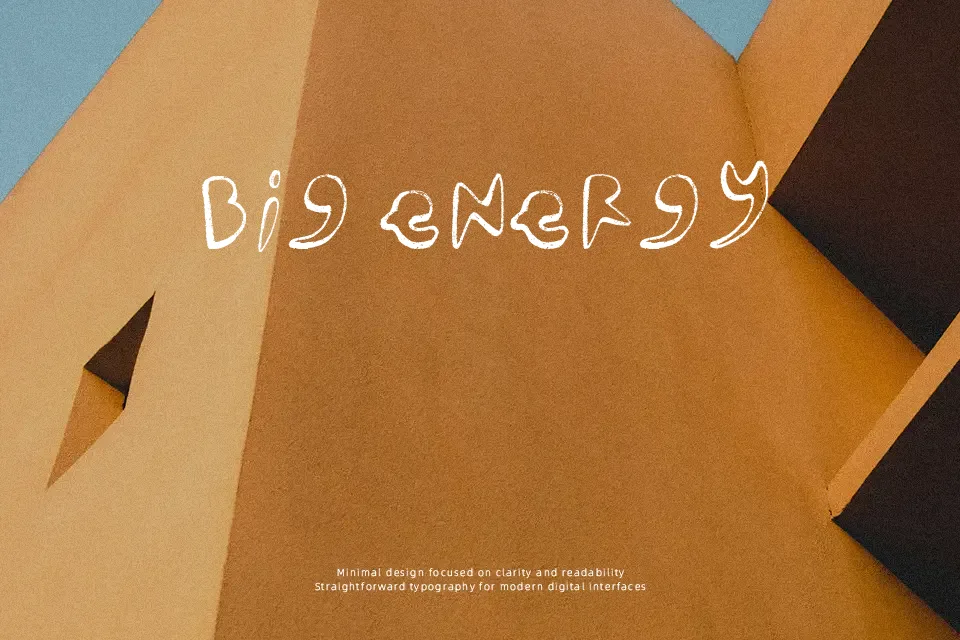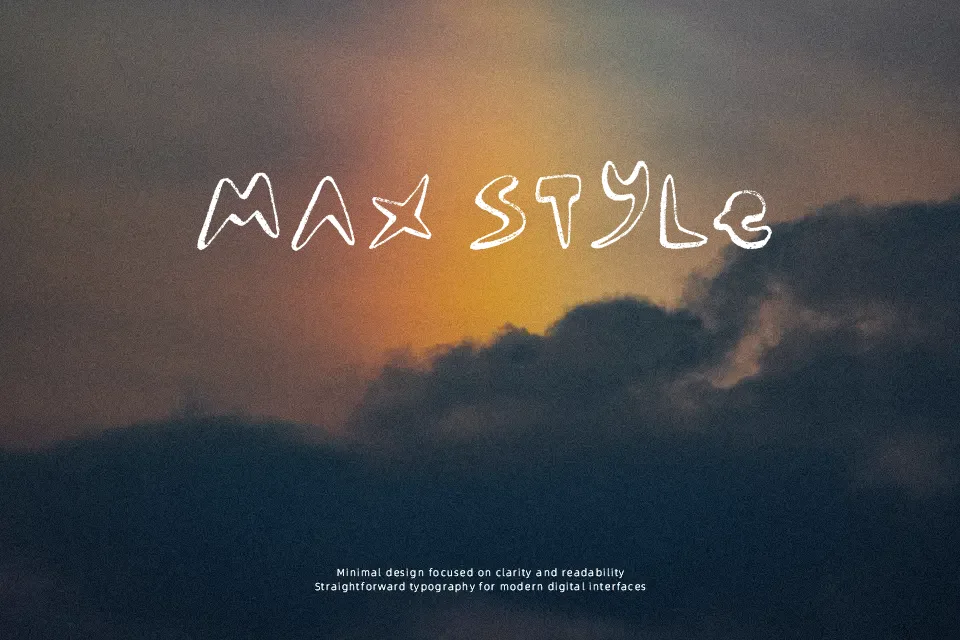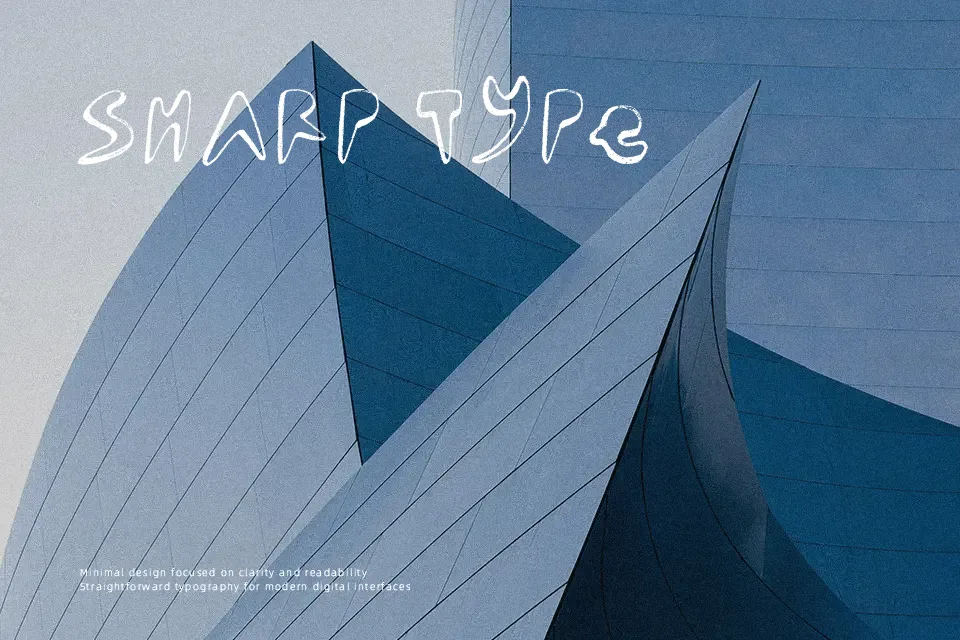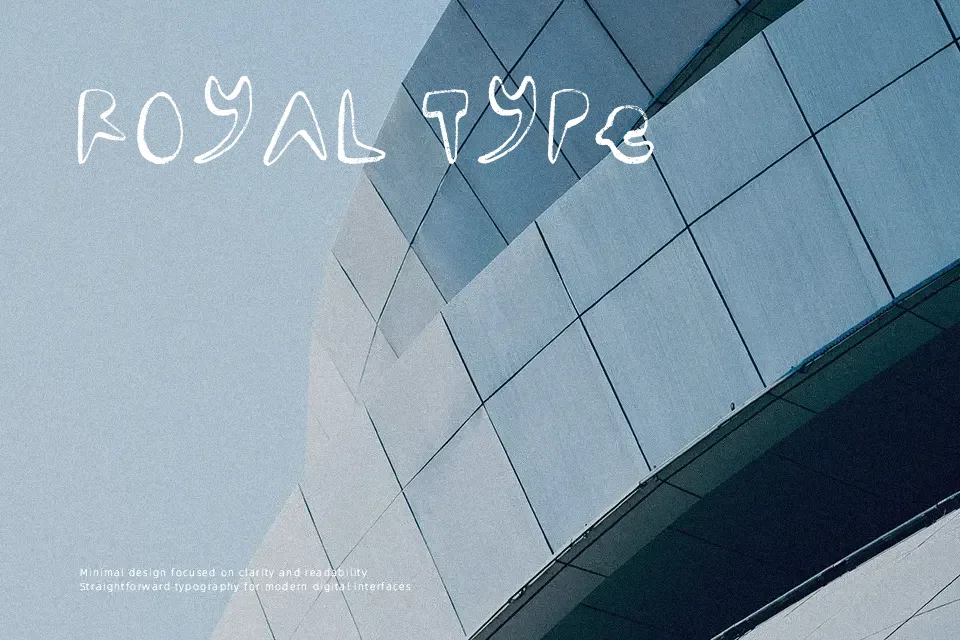
Seamonster Font
Seamonster Font is structured with whimsical letterforms that prioritize energetic display appeal over traditional geometric rigor. Generous interior counters and bold outer contours give each glyph a distinct silhouette, while moderately wide character spacing prevents stroke collision in headline layouts. Uniform stroke thickness helps preserve basic legibility across short phrases, balancing casual curves with balanced baseline alignment. The design delivers strong visual punch in large-format media such as festival flyers, comic book chapter titles, and apparel graphics. Because the open outline construction lacks interior solid fills, letter recognition quickly degrades at smaller scales and in continuous editorial paragraphs.
Best For: children’s event banners, comic book title cards, toy packaging, gaming stream graphics
Not Ideal For: dense editorial paragraphs, small interface labels, mobile body text, official legal documents
Perfect for gaming, headline, and kids, with a creative and cartoon style.